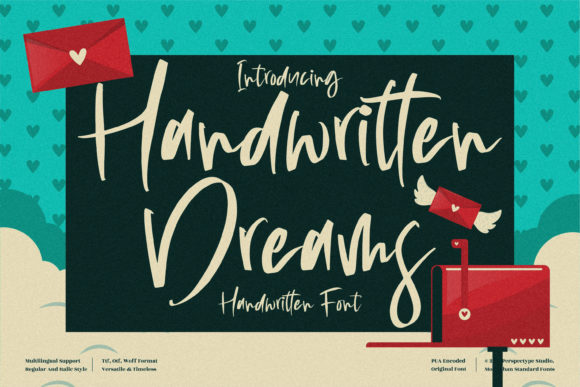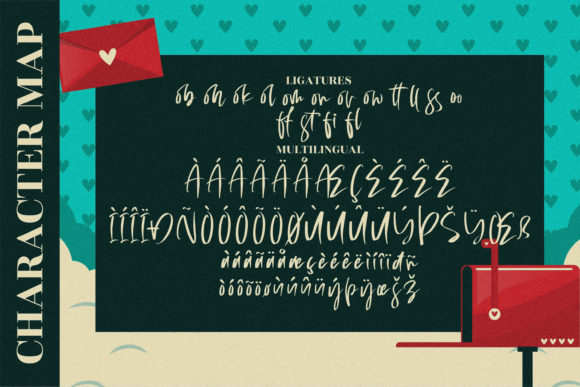
About Handwritten Dreams Font
Handwritten Dreams is a delightful and flowing script font that embodies beauty and elegance. With its smooth and graceful curves, this font adds a touch of charm and sophistication to any design.
The relaxed and friendly nature of Handwritten Dreams makes it perfect for projects that require a casual and informal feel. Whether you’re creating invitations, greeting cards, quotes, logos, or social media graphics, this font will bring a warm and inviting atmosphere to your designs.
The natural flow and beauty of Handwritten Dreams make it a versatile choice for a wide range of applications. Its handwritten style adds a personal and authentic touch, making your text feel genuine and heartfelt.
You can confidently incorporate Handwritten Dreams into your projects, knowing that its exquisite design will enhance the overall visual appeal. Its versatility allows it to adapt to various design themes and concepts, making it a valuable asset in your font collection.
With Handwritten Dreams, you can evoke a sense of creativity, friendliness, and approachability in your designs. Its smooth and flowing letterforms create a harmonious and pleasing visual experience for your audience.
So, whether you’re working on personal projects, branding materials, or marketing collateral, Handwritten Dreams is a font that will bring a touch of beauty and elegance to your designs, while also conveying a relaxed and friendly vibe.